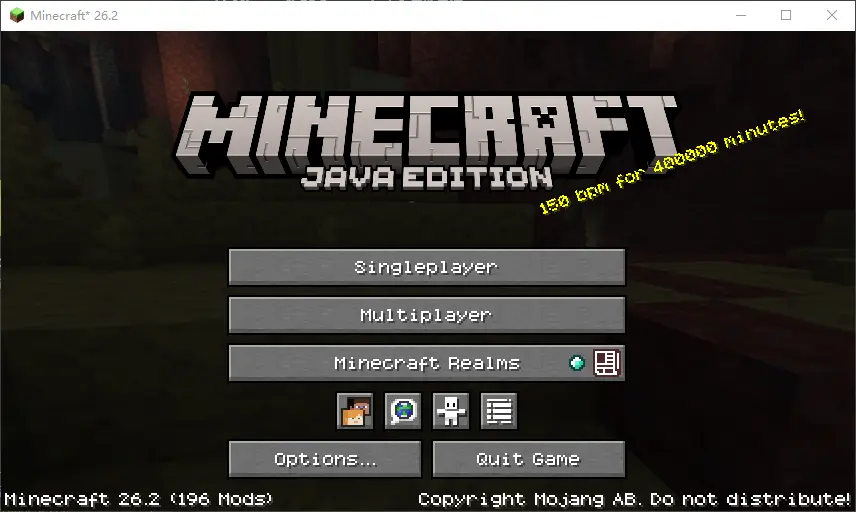
This resource pack changes Minecraft's default font Mojangles with a all-new font designed by me, which is good for playing (I think)
The main menu with this pack